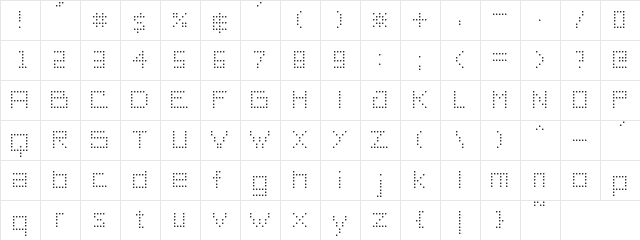
whatever regular Regular
Design Context for whatever regular Typeface
whatever regular is a composed and adaptable typeface that performs quietly and consistently across a wide range of design contexts.